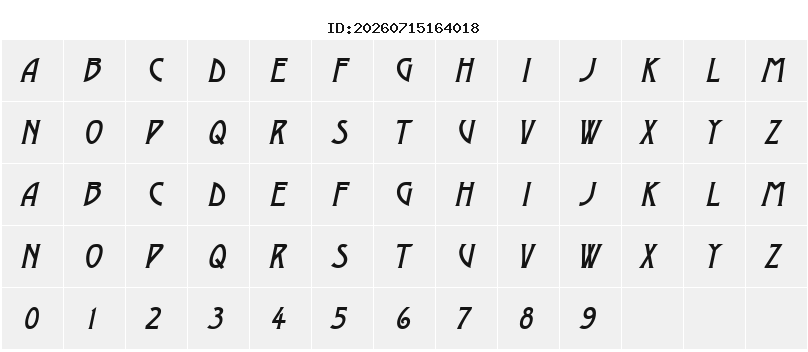
a_Moderno Preview
• Font Name: a_Moderno
• Font ID: a_Moderno
• Full Font Name: a_Moderno Italic
About a_Moderno.ttf
a_Moderno.ttf is a modern, elegant sans-serif font designed for ultimate readability and visual harmony. Perfect for branding, headlines, web design, and print materials.